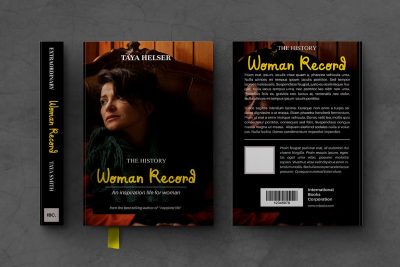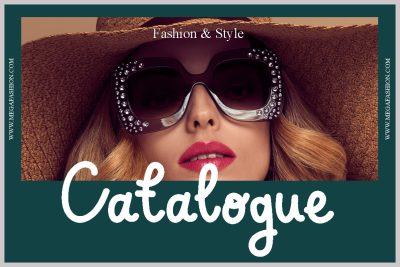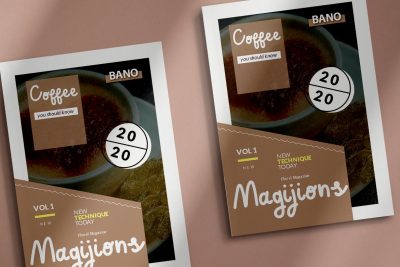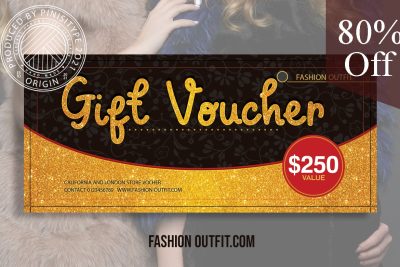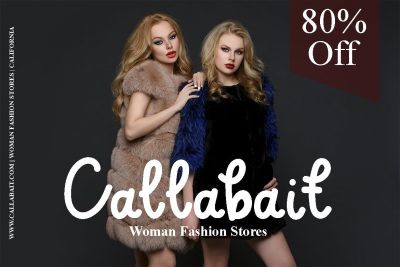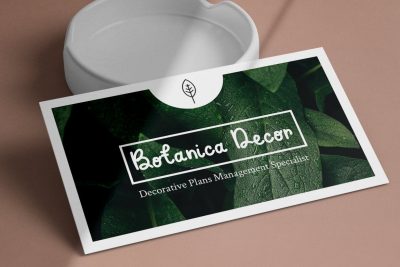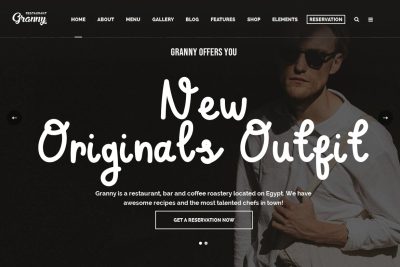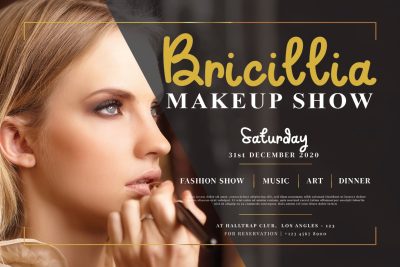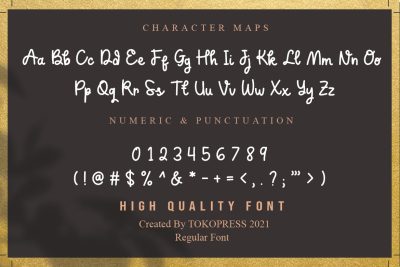
Cute Font Sound of Nature is a charming, organic typeface that beautifully captures the essence of nature with a gentle, playful feel. With its hand-drawn style and rounded, flowing letters, this font adds a unique personality to any design. Therefore, itโs perfect for projects that aim to evoke natural beauty and warmth. Each letter has a subtle, whimsical touch, adding character without overwhelming the design. Moreover, the fontโs smooth, inviting strokes make it ideal for projects that seek a friendly, approachable tone.
Sound of Nature is designed to feel effortless and natural, much like the beauty of the outdoors. Its simplicity allows it to work well across various styles, from decorative to minimalist. For example, whether used in a logo, message, or creative packaging, this font delivers a balance of playfulness and elegance. Consequently, it appeals to audiences looking for authenticity and warmth, making it perfect for nature-themed and handcrafted projects.
Cute Font Sound of Nature is ideal for designers, brands, and creators who want to emphasize warmth, nature, and authenticity. It suits eco-friendly and wellness industries, including organic skincare, sustainable fashion, and artisanal products. For brands that focus on natural values, Sound of Natureโs hand-drawn look aligns well with these themes. Additionally, its friendly, earthy style makes it perfect for packaging, labels, and brand materials, helping convey a message of purity and care.
Furthermore, this font works well for childrenโs products, educational materials, and family-oriented projects. Its playful yet gentle look resonates with both parents and children, making it suitable for storybooks, toys, and learning tools. The font brings a sense of fun and creativity, ideal for brands that want a family-friendly appeal.
Additionally, lifestyle bloggers, DIY crafters, and social media creators can benefit from Sound of Nature. It adds warmth and approachability to posts, stories, and graphics, making it easier to connect with audiences. In digital media, its organic style stands out without overpowering, creating a friendly and down-to-earth vibe. In short, Cute Font Sound of Nature is a versatile typeface that adds a natural, friendly touch to any project.